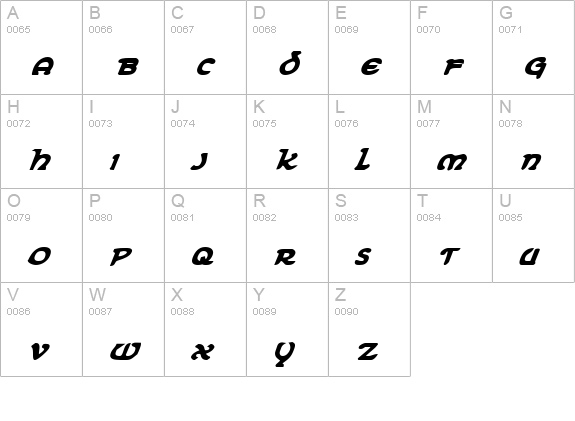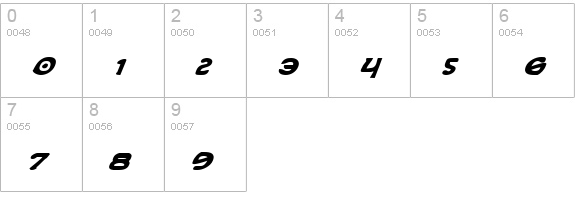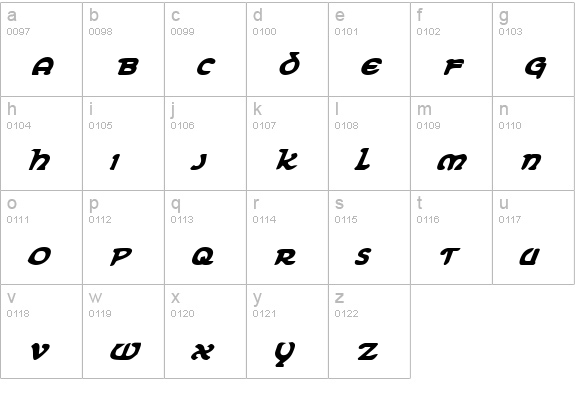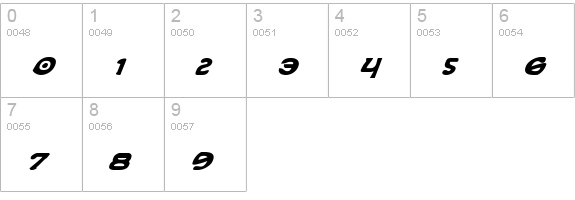
Erin Go Bragh Bold Italic is a strong, high-contrast, italic variant in the Erin typeface family \xE2\x80\x94 well suited to headlines, attention-grabbing titles, and strong calls-to-action.
Erin Go Bragh Bold Italic is a striking and dynamic font that exudes confidence and sophistication. Its bold strokes and italicized design make it perfect for grabbing attention and adding a touch of flair to any project. This font is ideal for headlines, titles, and any text that needs to make a bold statement. The best part? Erin Go Bragh Bold Italic is available for free download at FontsMarket.com. Now you can elevate your designs with this stylish and eye-catching font without breaking the bank. Don't miss out on this fantastic opportunity to enhance your projects with the sleek and modern look of Erin Go Bragh Bold Italic. Download it today and let your creativity shine!